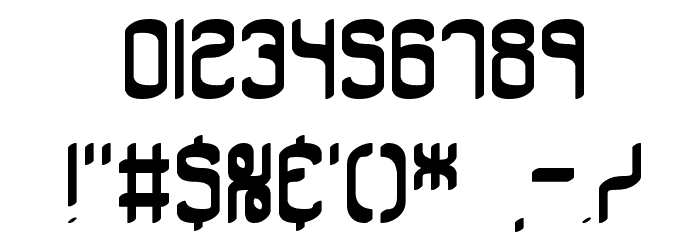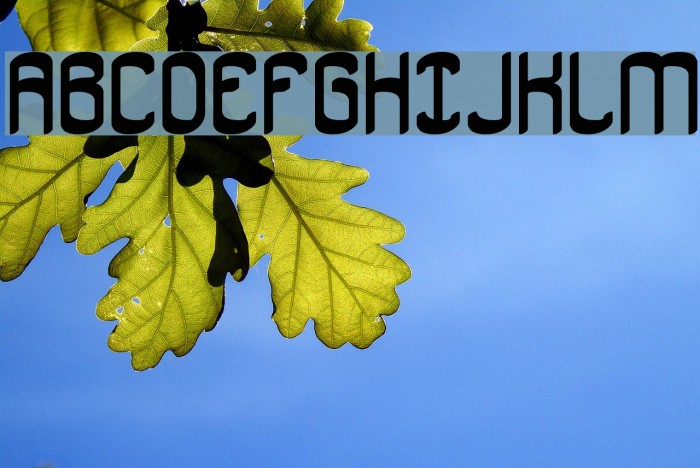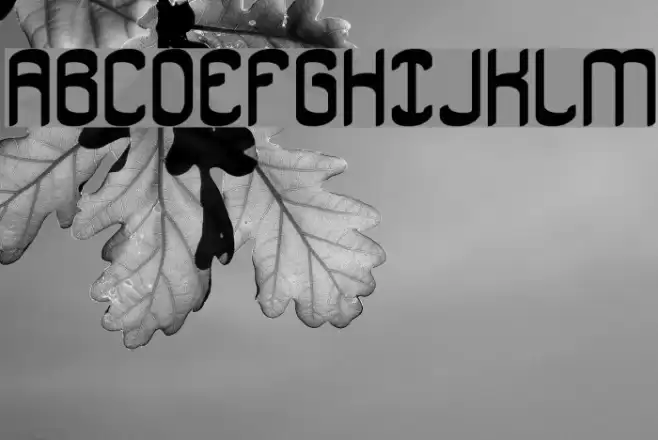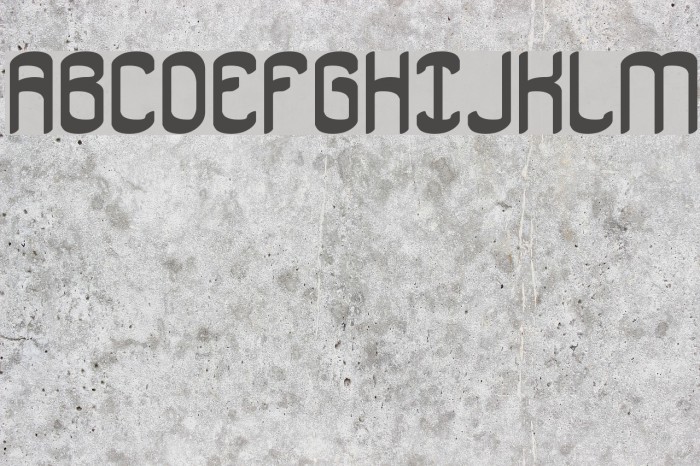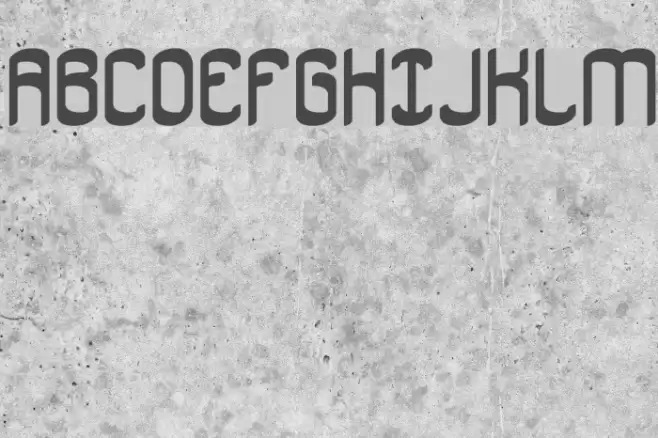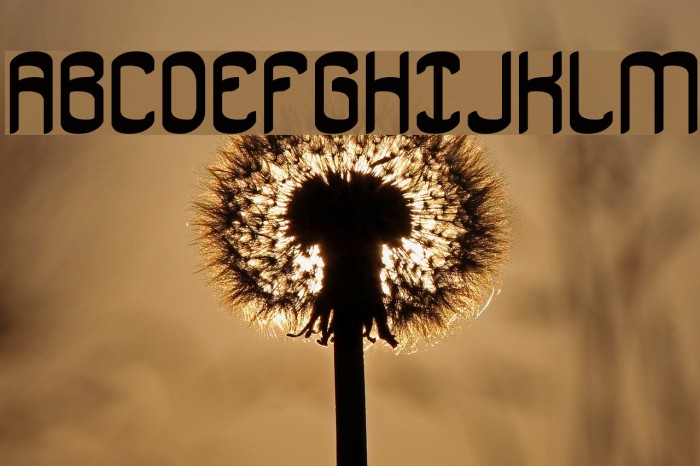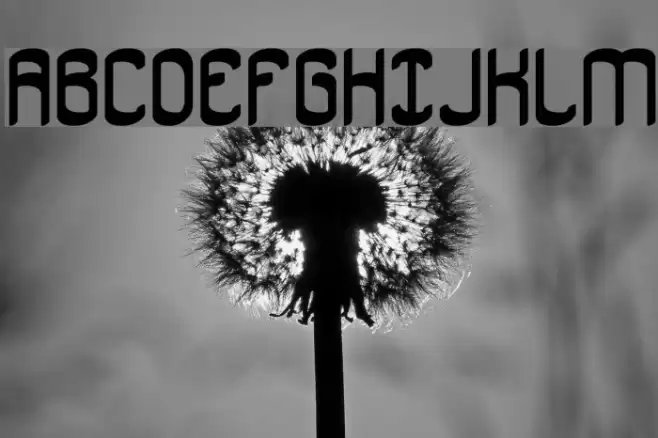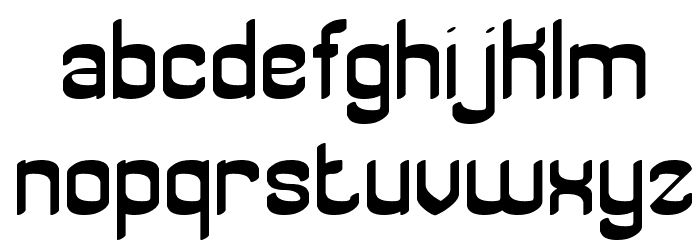
Jargon BRK Font
Jargon BRK Description
This font features a unique and modern design with rounded edges and a slightly condensed appearance. The characters are bold and have a consistent stroke width, giving them a strong presence. The uppercase letters are tall and slightly narrow, while the lowercase letters maintain a similar style with a more compact form. The numbers and special characters follow the same design principles, ensuring uniformity across all glyphs. The overall look is clean and futuristic, making it suitable for contemporary design projects.
| Proposed Projects | Ideal for technology branding, modern advertising, futuristic posters, and digital interfaces. |